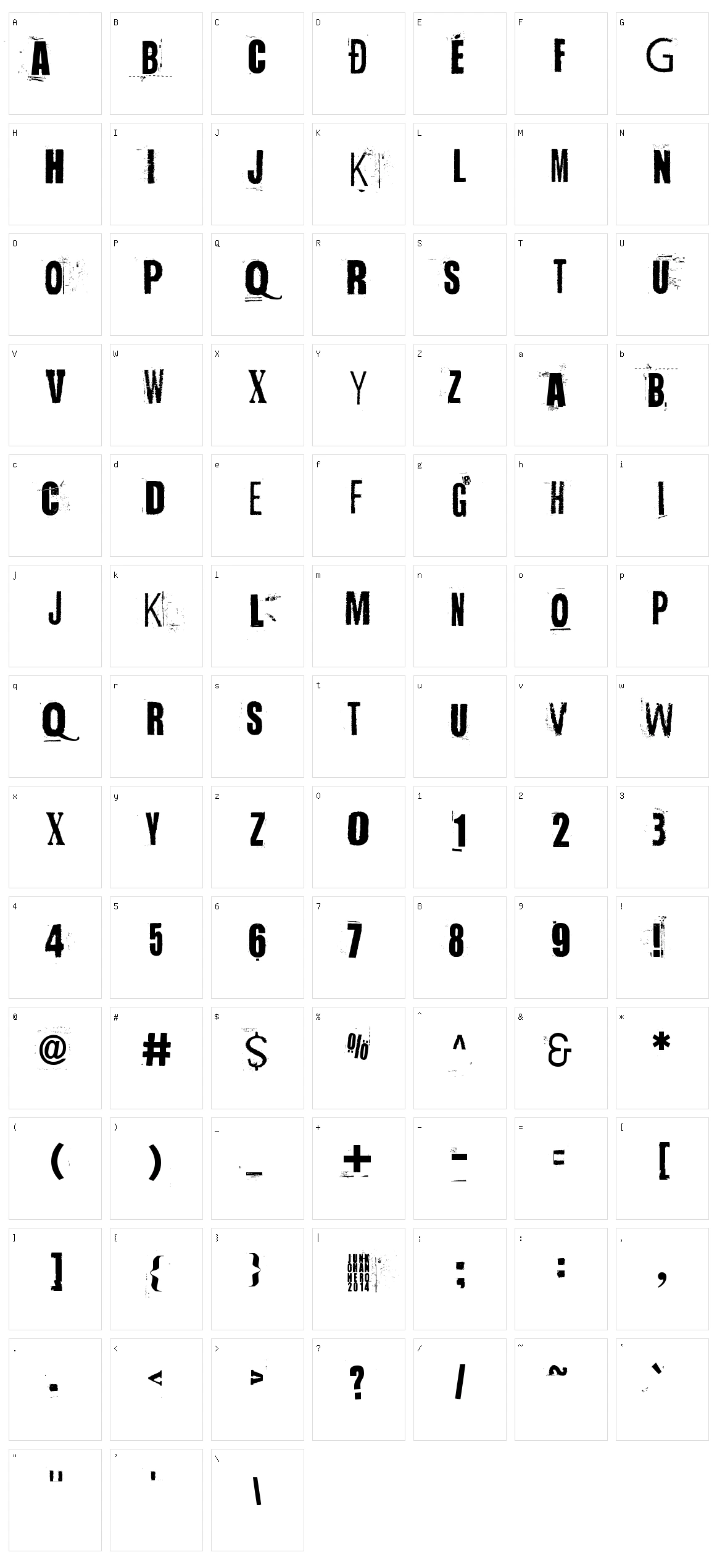
The free font Handful of Nothing is carefully designed by junkohanhero, showcasing a thoughtful balance of creativity and usability and falls under the Destroy font style. When you download the ZIP file, it contains only 277.39 KB of font files, making it lightweight and quick to download. Please review the license details below to understand permitted usage and distribution rights. If license information is not available, we recommend using this font for personal projects only or contacting the author directly for commercial usage permissions.